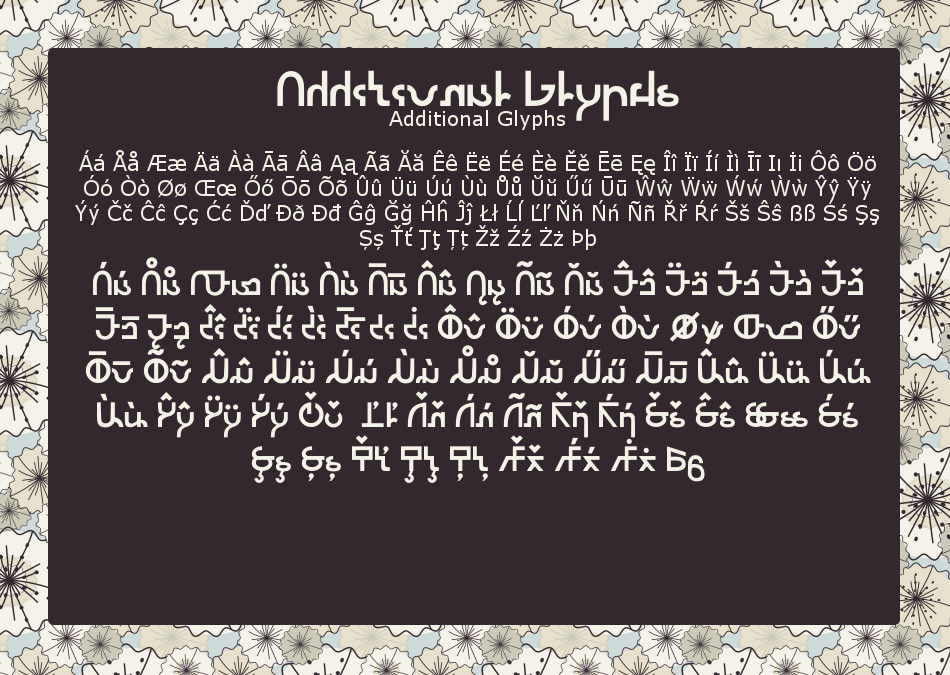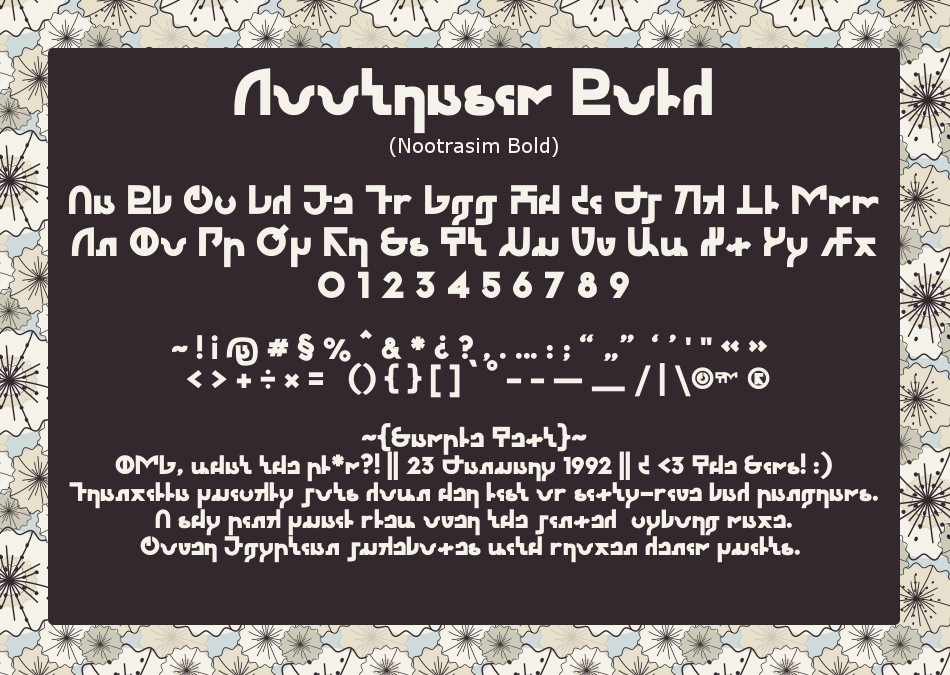
Simlish Font - Nootrasim
This one was quite a pain in the buns, but here it is!
Nootrasim gets its name from the font family Neutraface because that was my original inspiration for it, but I seem to have drifted from that. Whoops. I hope you can still see the resemblance though!
It (currently?) comes in four variants: Regular, Bold, Shadow, and Wire. I had quite a bit of fun with FontForge this time!
You may note the extra 'g' and 'm' shown in each preview pic. I couldn't decide on a style, so I've included both.
The Additional Glyphs pictures each show a handful of extra characters, but this time I've also included a character map:
The ~{Sample Text}~ at the bottom reads as follows:
OMG, what the pl*m?! || 23 January 1992 || I <3 The Sims!
Franzilla quickly jots down her list of sixty-five bad pangrams.
A shy pink quail flew over the jinxed cyborg maze.
Cover Egyptian jukeboxes with frozen denim quilts.
This is but a plain, simple font.
-You may have to adjust some kerning pairs. I'm still working on perfecting this!
- I used anchors for the diacritic placement for the first time when making this font. This made things easier, but since it was my first time, there may be mistakes. Please let me know if you find any!